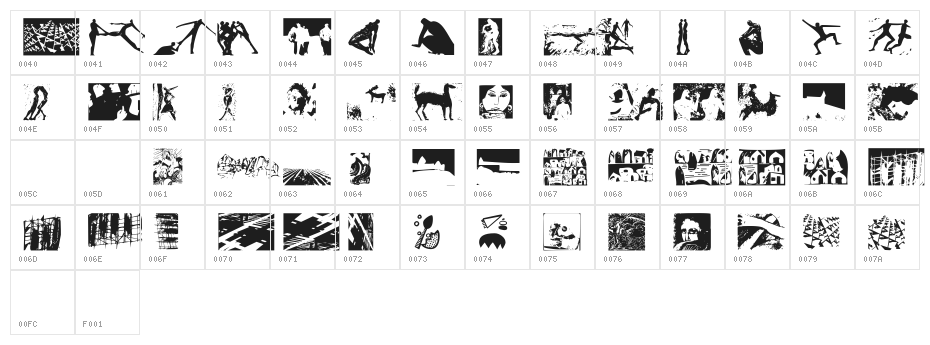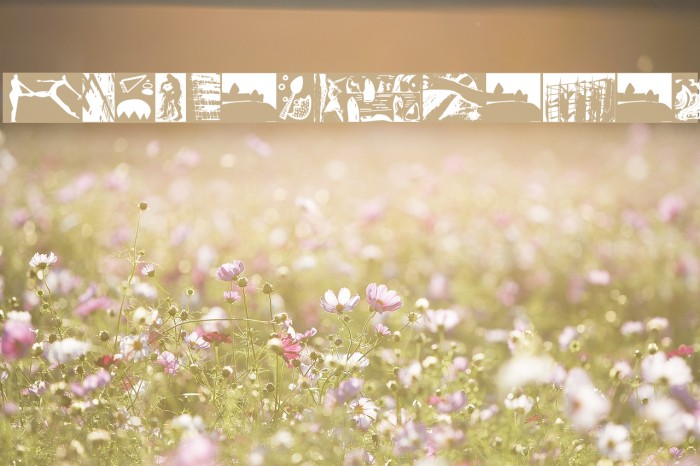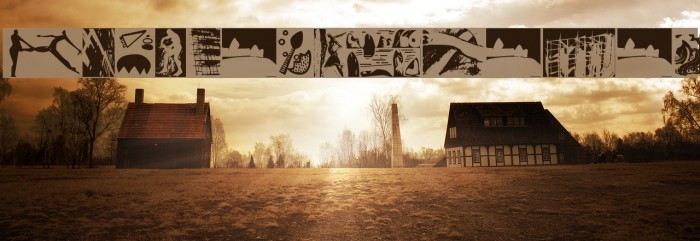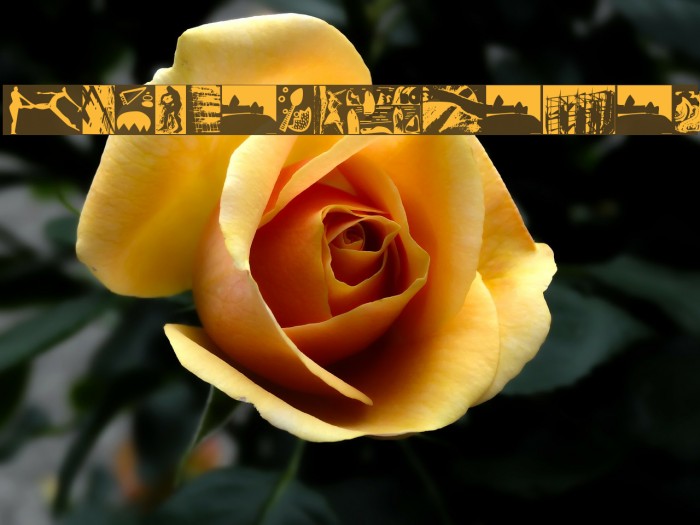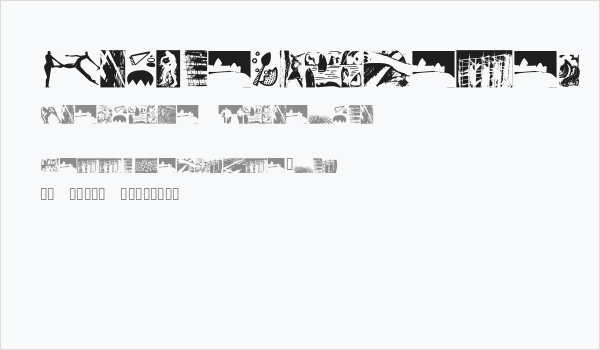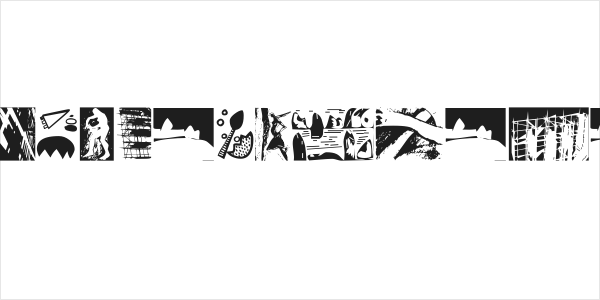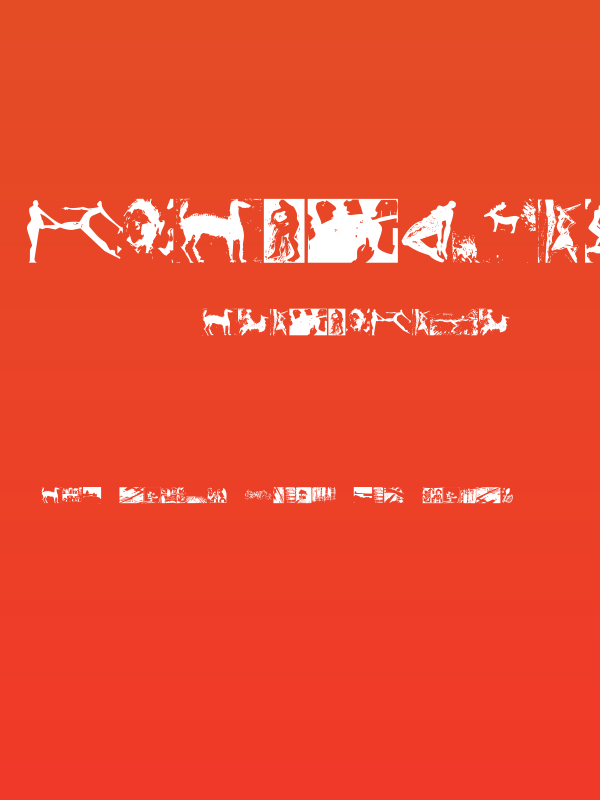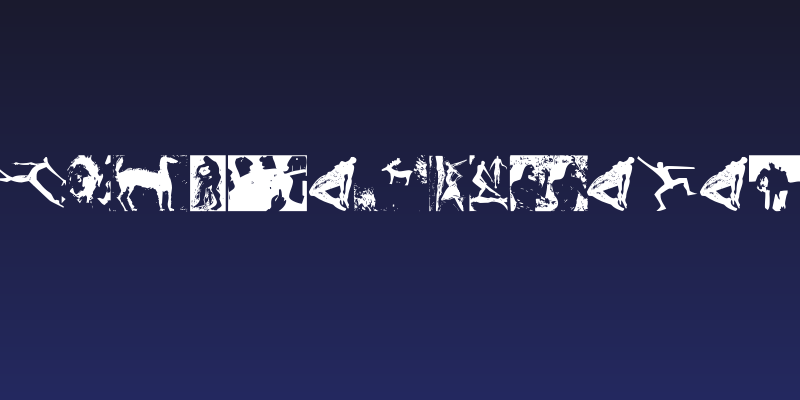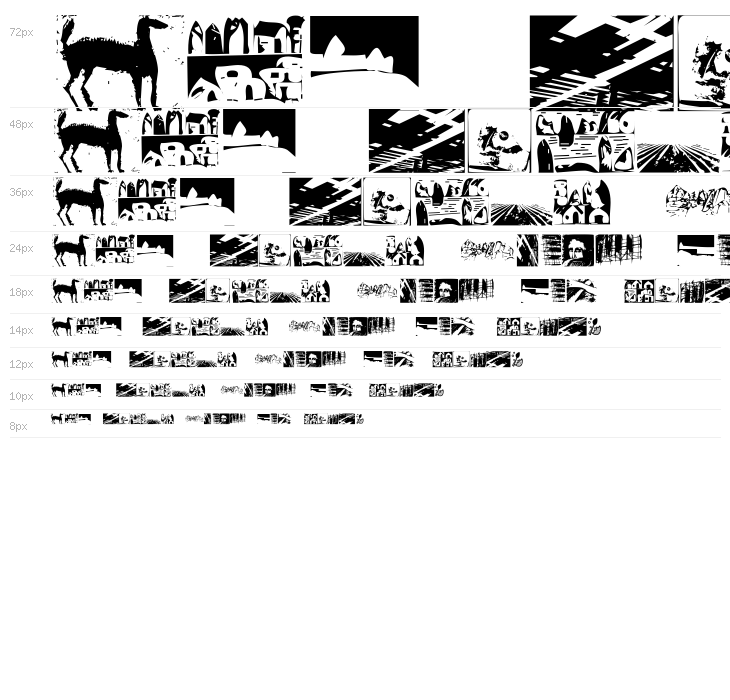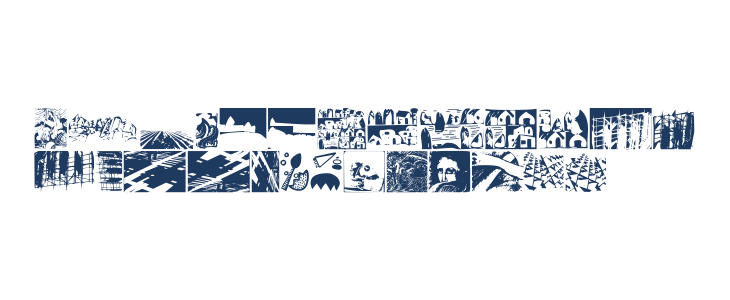
ArtGoesPixeled Font
ArtGoesPixeled Description
A highly decorative and illustrative font where each character is represented by a unique, detailed black-and-white pictorial scene or abstract composition, evoking the style of pixel art or woodcut illustrations. The glyphs are complex and visually dense, making each letter a miniature artwork rather than a traditional typographic form.
| Overall Style | Decorative, Artistic, Experimental |
| Use Case | Logos, Headlines, Posters, Art projects |
| Proposed Projects | Art posters, album covers, creative branding, gallery invitations, experimental zines, visual storytelling, and decorative headings. |